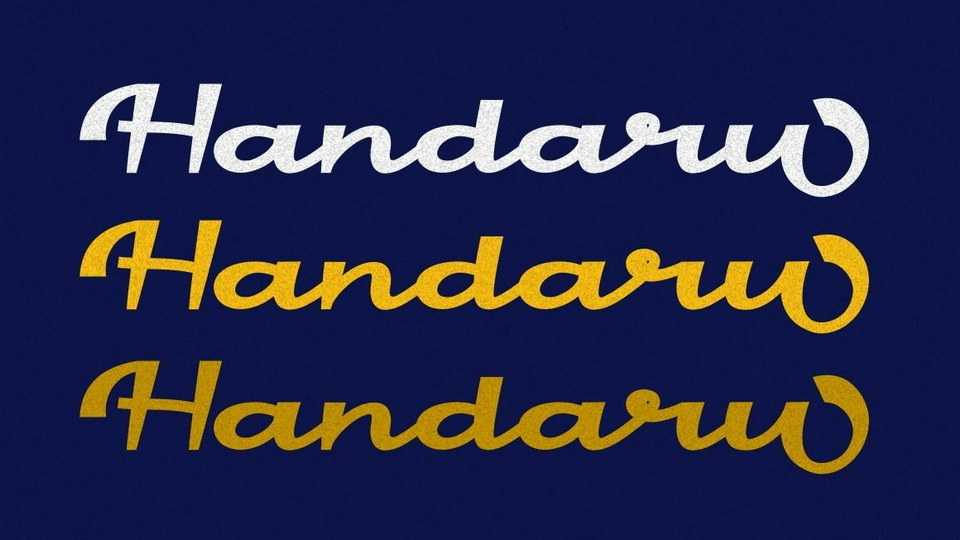
Download Handaru font, a bold vintage typeface, shallow or flattened than other fonts. But even so, Handaru still doesn’t take away from the neat and modern impression of this font.
Designer: PutraCetol Studio